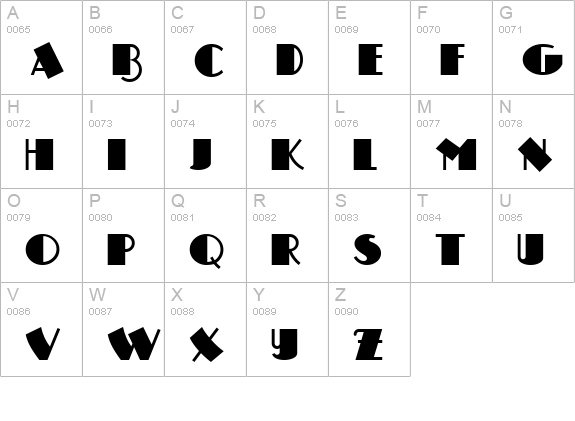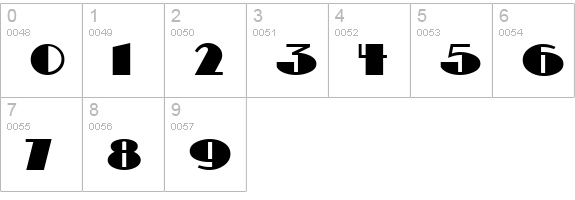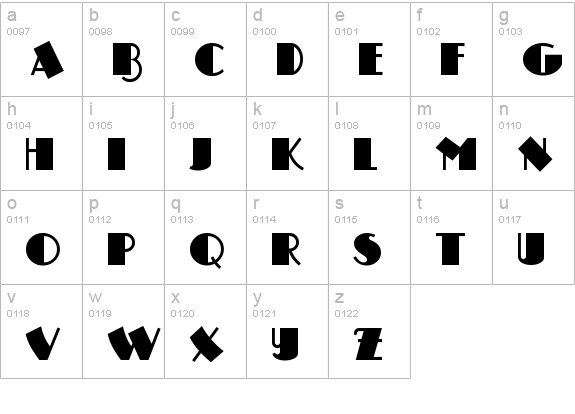
DrumagStudioNF Font Details
DrumagStudioNF is a modern and stylish font that brings a unique touch to any project it is used in. With its sleek lines and contemporary design, this font is perfect for a wide range of applications, from branding to graphic design and beyond. The versatility of DrumagStudioNF makes it a must-have for anyone looking to make a statement with their typography. Best of all, DrumagStudioNF is available for free download at FontsMarket.com. This means that you can add this beautiful font to your collection without having to spend a penny. Don't miss out on the opportunity to enhance your designs with DrumagStudioNF today!